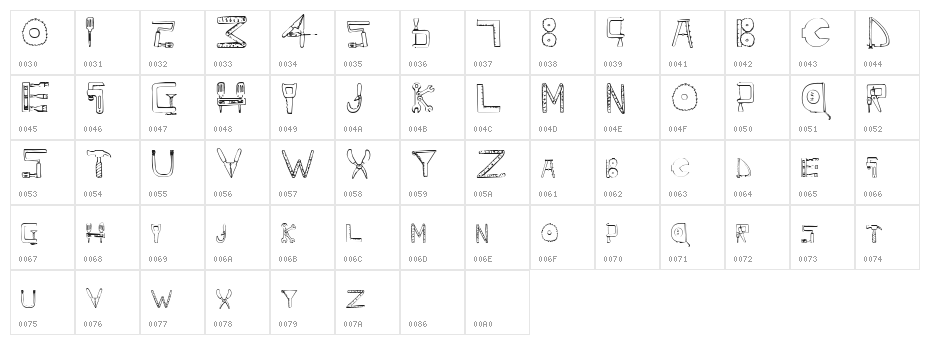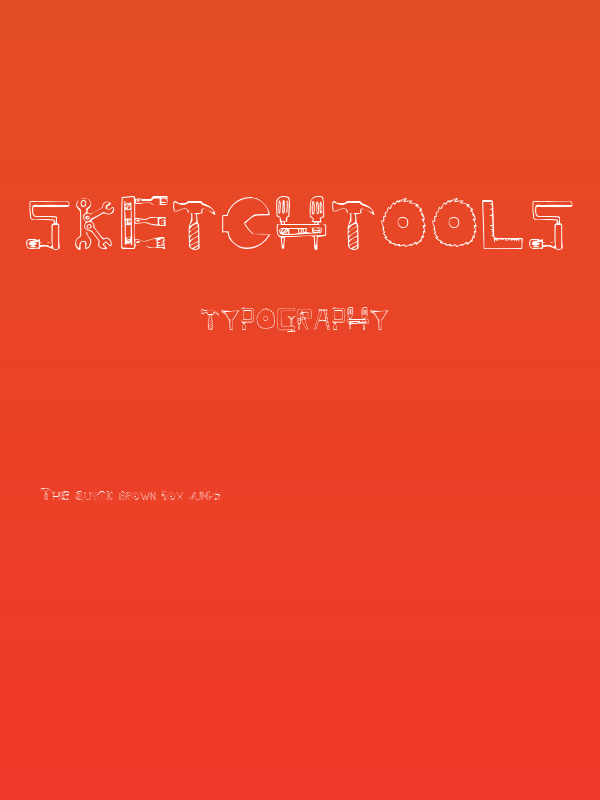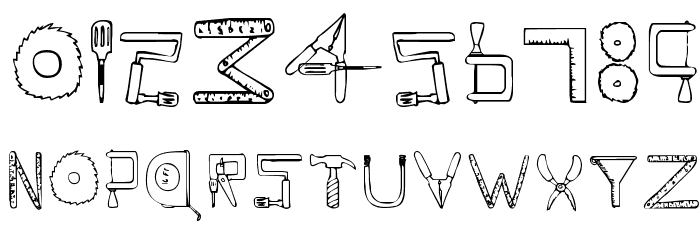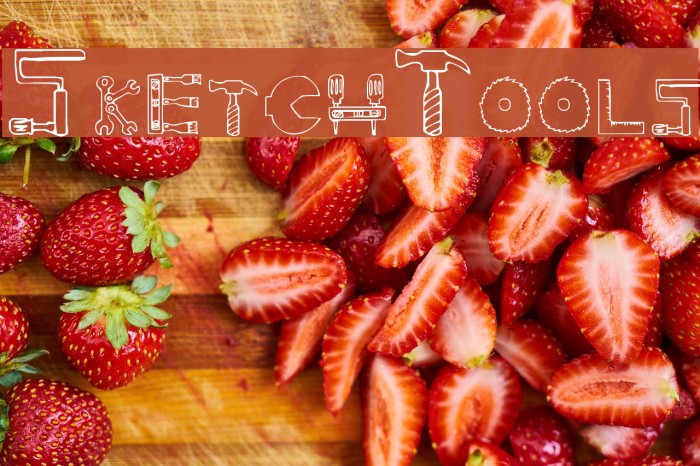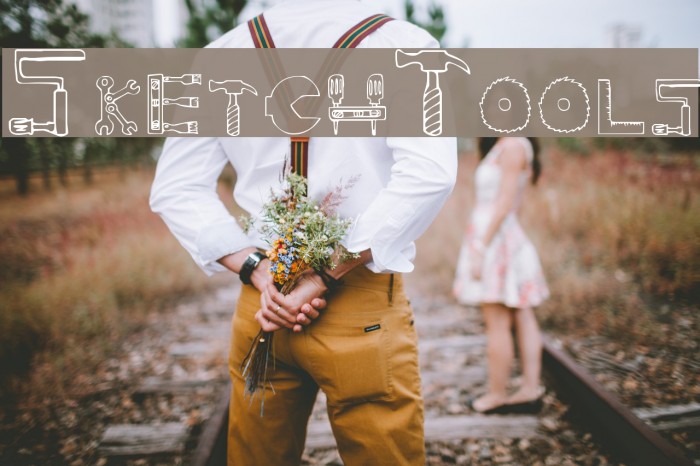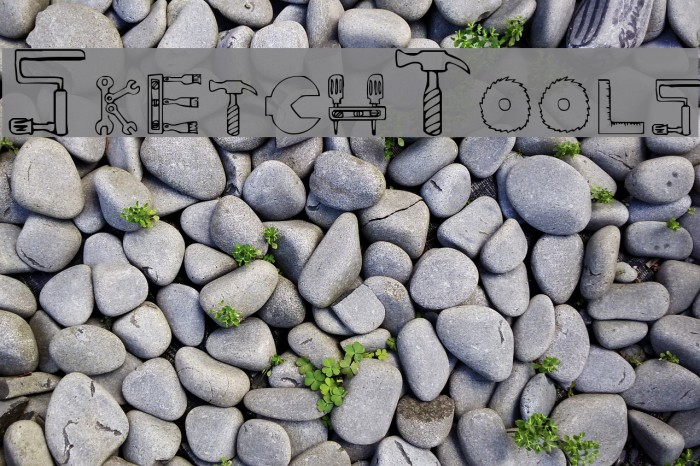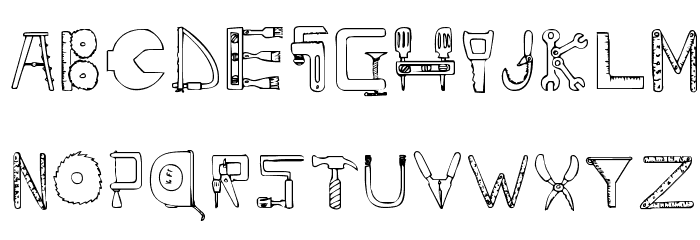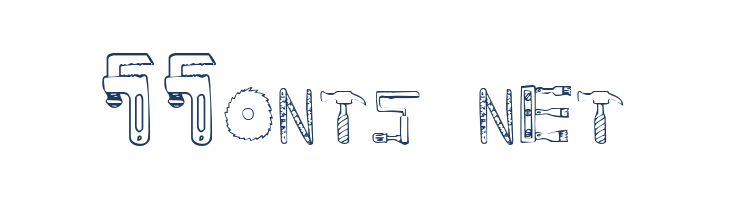
SketchTools Font
SketchTools Description
This font is a creative and playful representation of various tools, with each letter and number crafted to resemble a different tool or piece of equipment. The design is highly detailed, with elements such as saws, wrenches, rulers, and screwdrivers integrated into the characters. The font has a hand-drawn, illustrative style, making it visually engaging and ideal for projects that require a unique and thematic approach. The characters are well-defined, with a consistent line weight that adds to the overall cohesion of the design. This font is perfect for DIY-themed projects, educational materials, or any creative work that benefits from a distinctive and thematic typeface.
| Proposed Projects | Ideal for DIY-themed projects, educational materials, creative posters, and thematic branding. |